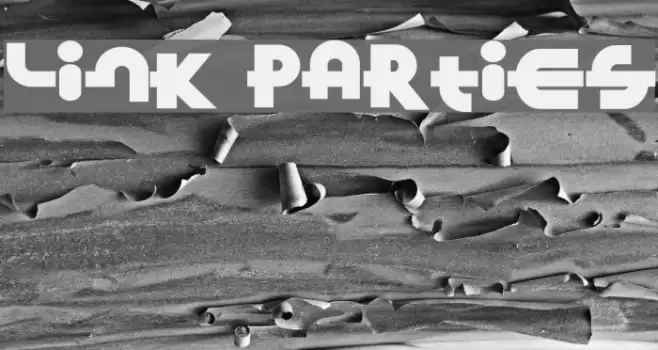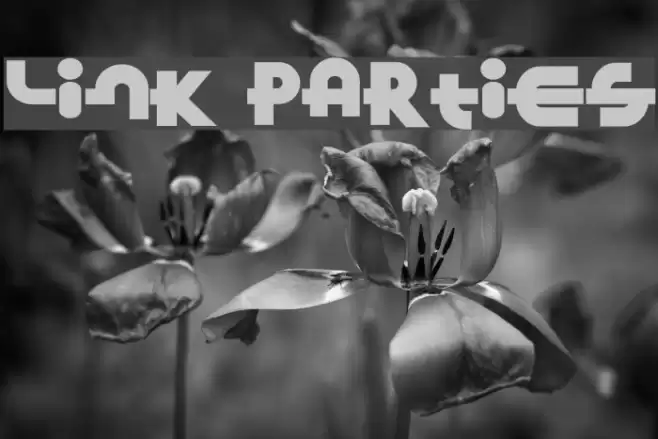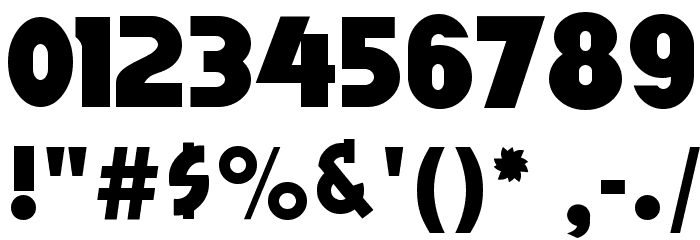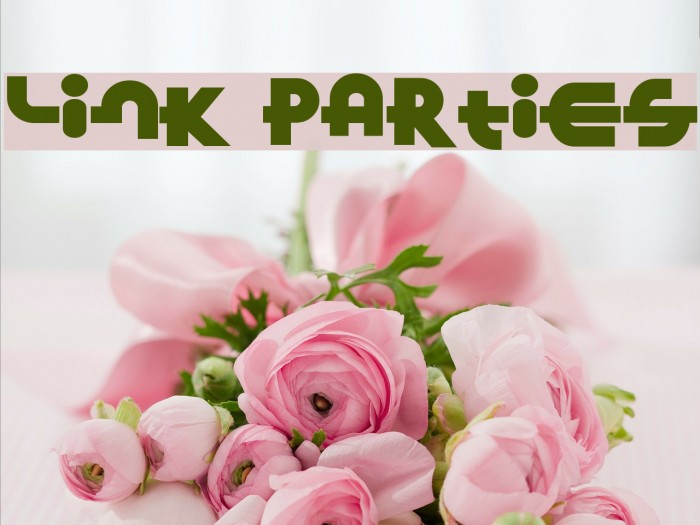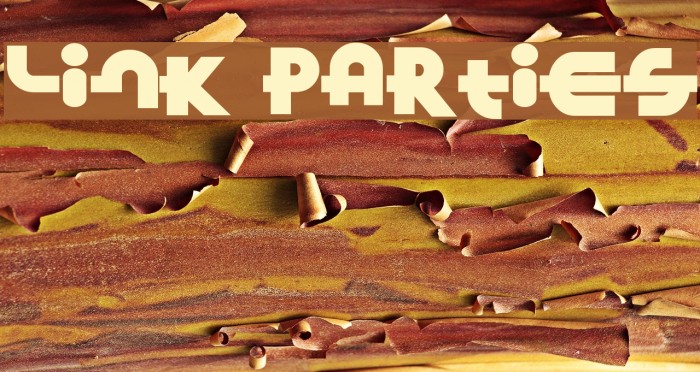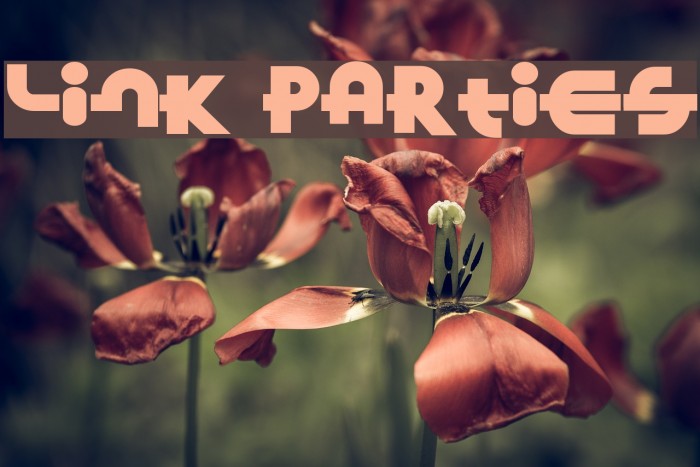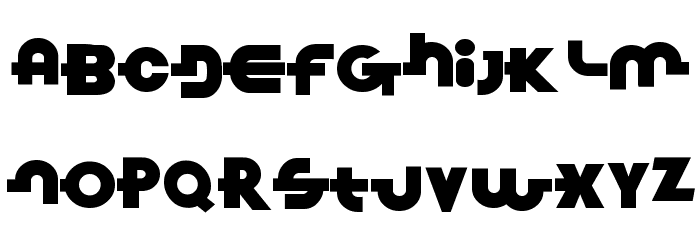
Link Parties Font
Link Parties Description
This font features a bold and geometric design with a distinct modern flair. The characters are constructed with thick strokes and sharp angles, creating a sense of strength and stability. The uppercase letters have a unique style with some characters incorporating cut-out sections, adding a playful and dynamic element. The lowercase letters maintain the boldness, with rounded edges that contrast the angular nature of the uppercase. Numbers and special characters follow the same bold and geometric theme, ensuring consistency throughout. This font is ideal for projects that require a strong visual impact and a contemporary aesthetic.
A bold, geometric font with modern and playful elements from Uncategorized fonts.
- Proposed Projects: Ideal for branding, posters, headlines, and any design needing a strong, modern impact.